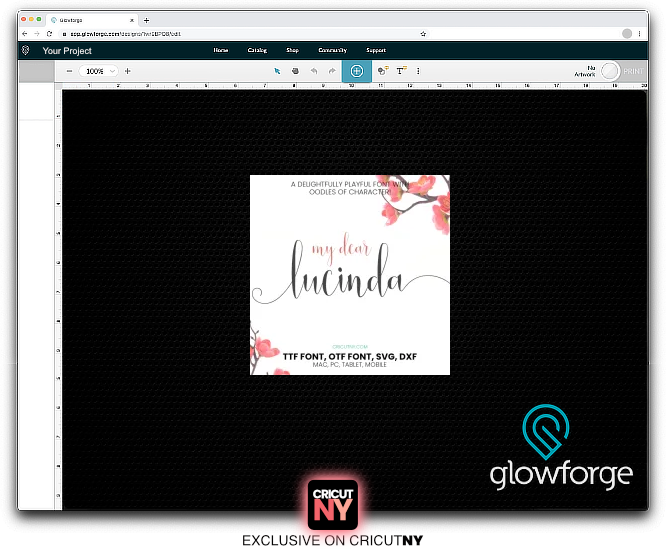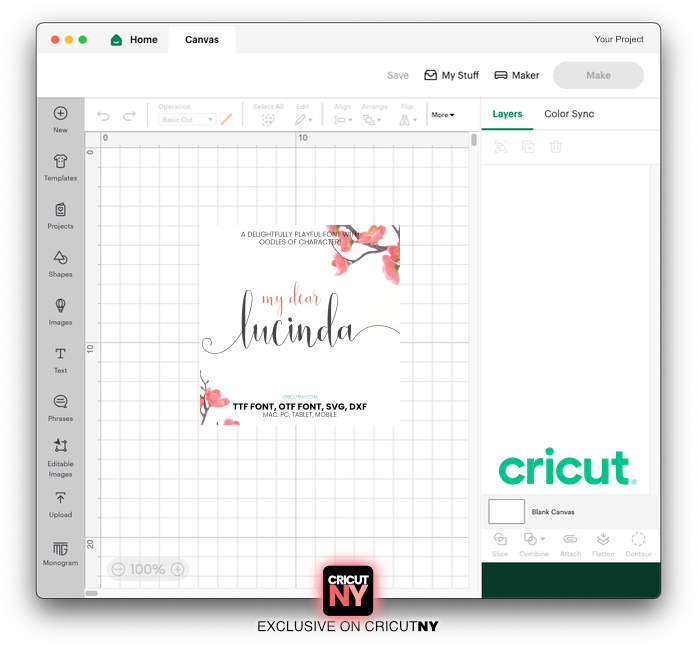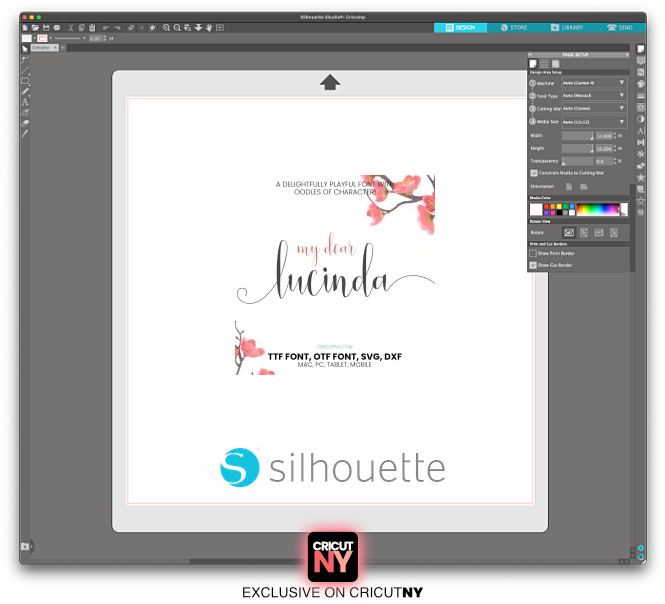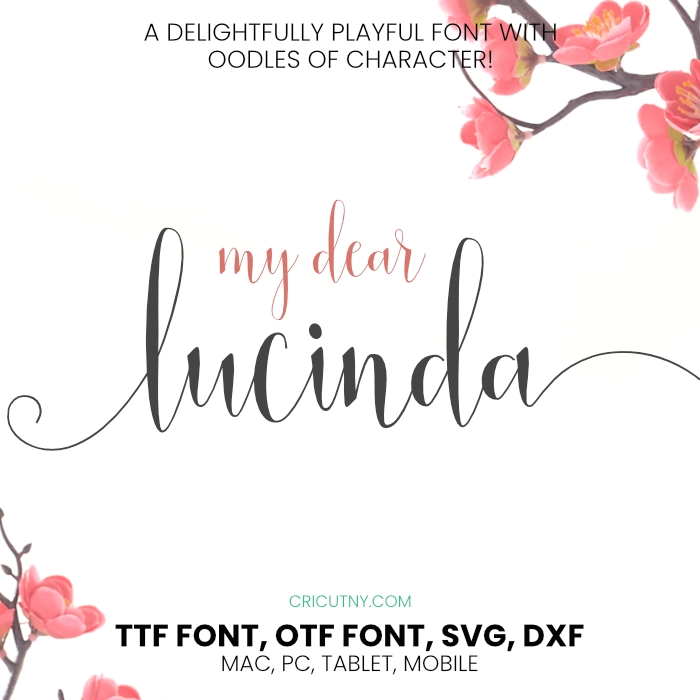
Cricut design space font with tails, Lucinda
If you’re looking for a complete Cricut font with tails, you have to try that one. I created over four different styles per long tail letter. That way, you are sure you will find a style that matches your design.
In my opinion, this new creation that took over four weeks to create is one of the best Cricut cursive fonts with tails. But yes, it works with Silhouette, Canva or any cutting machine and design software.
I can even risk saying that font can be used as a signature font writing; why not? The lines are delicate and beautiful, after all.
Every font is beautiful, of course, but it’s helpful to have a complete selection of tails font to make a design look unique. Who wants to have a design that looks like all the others anyway!?